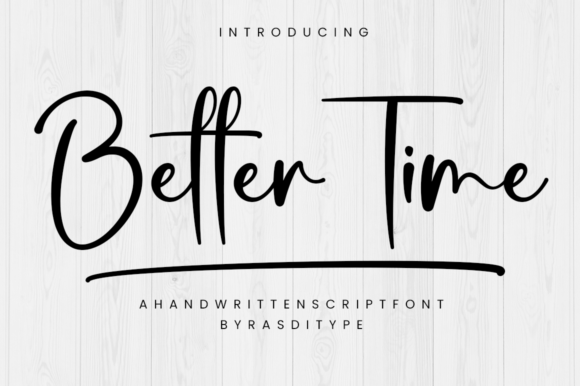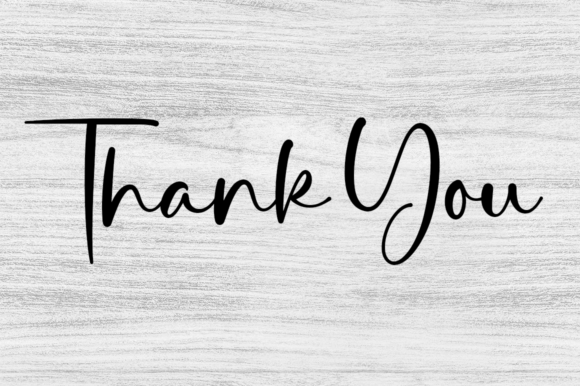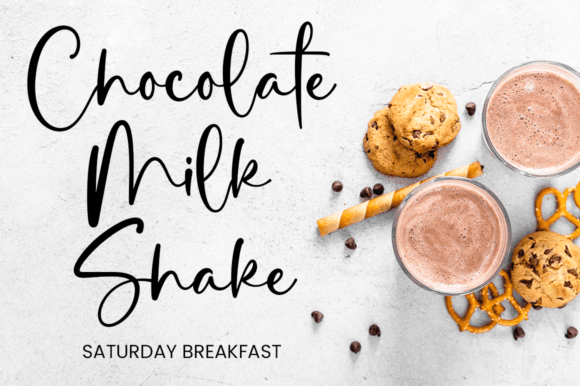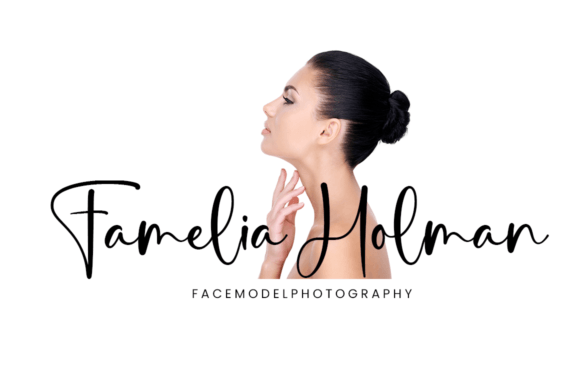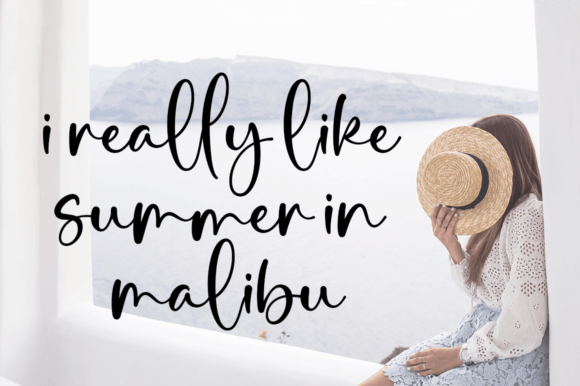
About Better Time Font
Better Time is an exquisite script font that encapsulates the essence of loveliness and delicacy, radiating an aura of elegance and class. Meticulously crafted, this font is tailored for individuals seeking to infuse their designs with a touch of beauty and a breath of fresh sophistication.
The cursive strokes of Better Time dance gracefully across the canvas, creating a visual symphony that captures attention and conveys a sense of refined aesthetics. Each letter is a testament to the careful artistry behind the font, contributing to an overall design that is both visually striking and harmoniously balanced.
This font is a breath of fresh air for designers in search of a style that transcends the ordinary. Better Time injects a sense of timeless beauty into your projects, making it ideal for a variety of creative applications. Whether adorning invitations, complementing branding materials, or enhancing the visual appeal of your website, this font seamlessly adapts to diverse design needs.
The delicate nature of Better Time doesn’t compromise its readability; instead, it enhances the overall visual experience. Its charm lies in its ability to evoke a sense of nostalgia while maintaining a contemporary allure. The result is a font that not only meets but surpasses the expectations of those with a keen eye for refined design.
Whether you’re crafting invitations for a special event or refining your brand’s visual identity, Better Time becomes a companion that elevates your creative expression. Its fluid lines and graceful curves work in unison to create a script that is not just a font but a work of art, adding a layer of sophistication to every letter and word.
In essence, Better Time isn’t just a typeface; it’s an aesthetic choice that transforms your designs into a visual journey. Let this font be the brushstroke that paints your creative endeavors with an undeniable sense of loveliness and delicate charm, ensuring that every project becomes a showcase of timeless elegance.